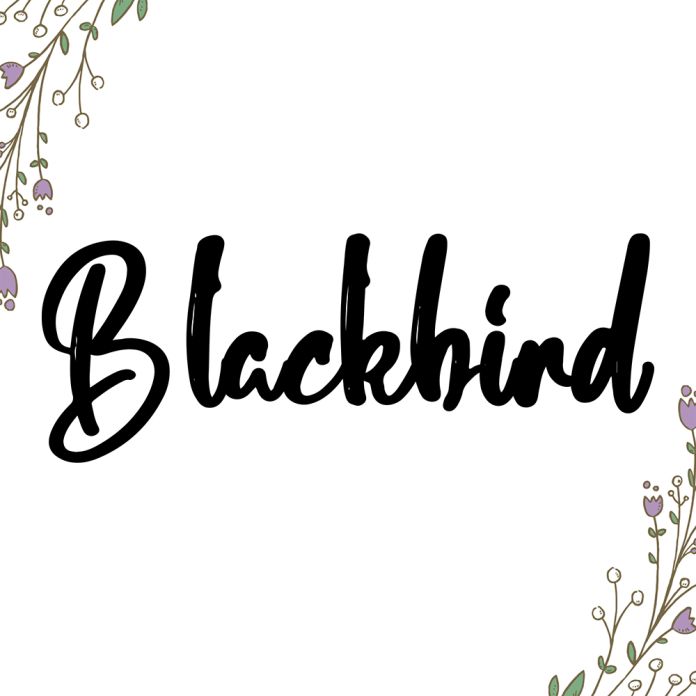
Blackbird is a beautiful script font that combines the elegance of cursive handwriting with a casual, handmade touch. Perfect for logos, greeting cards, and branding, this font adds a timeless and heartfelt feel to any design.